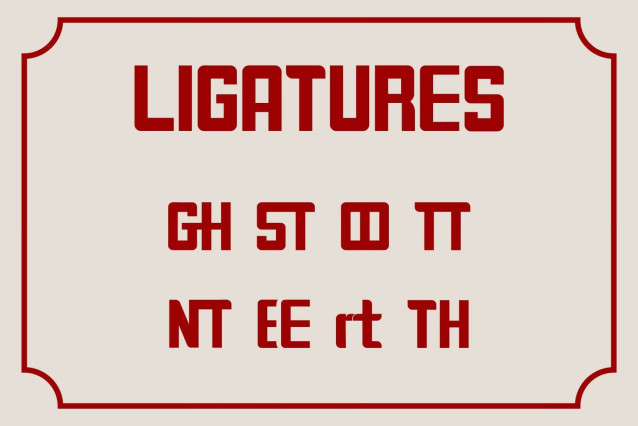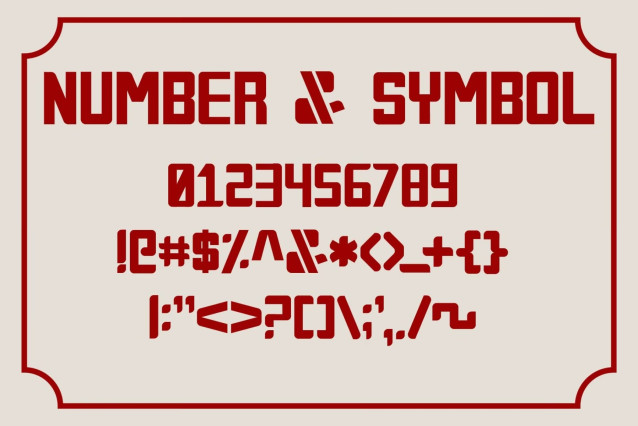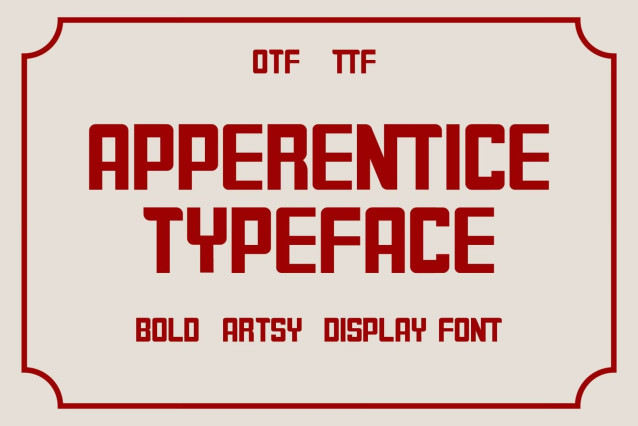
APPERENTICE – Modern Brush Handwritten Font
APPERENTICE brings a bold yet elegant handwritten feeling to your creative projects. Its organic brush strokes and stylish letterforms make it perfect for designers, creators, and brands looking for a unique personal touch.
Whether you’re creating a logo, brand identity, social media content, packaging, or custom artwork, APPERENTICE helps your designs stand out.
✔ Uppercase letters
✔ Lowercase letters
✔ Numbers
✔ Punctuation & symbols